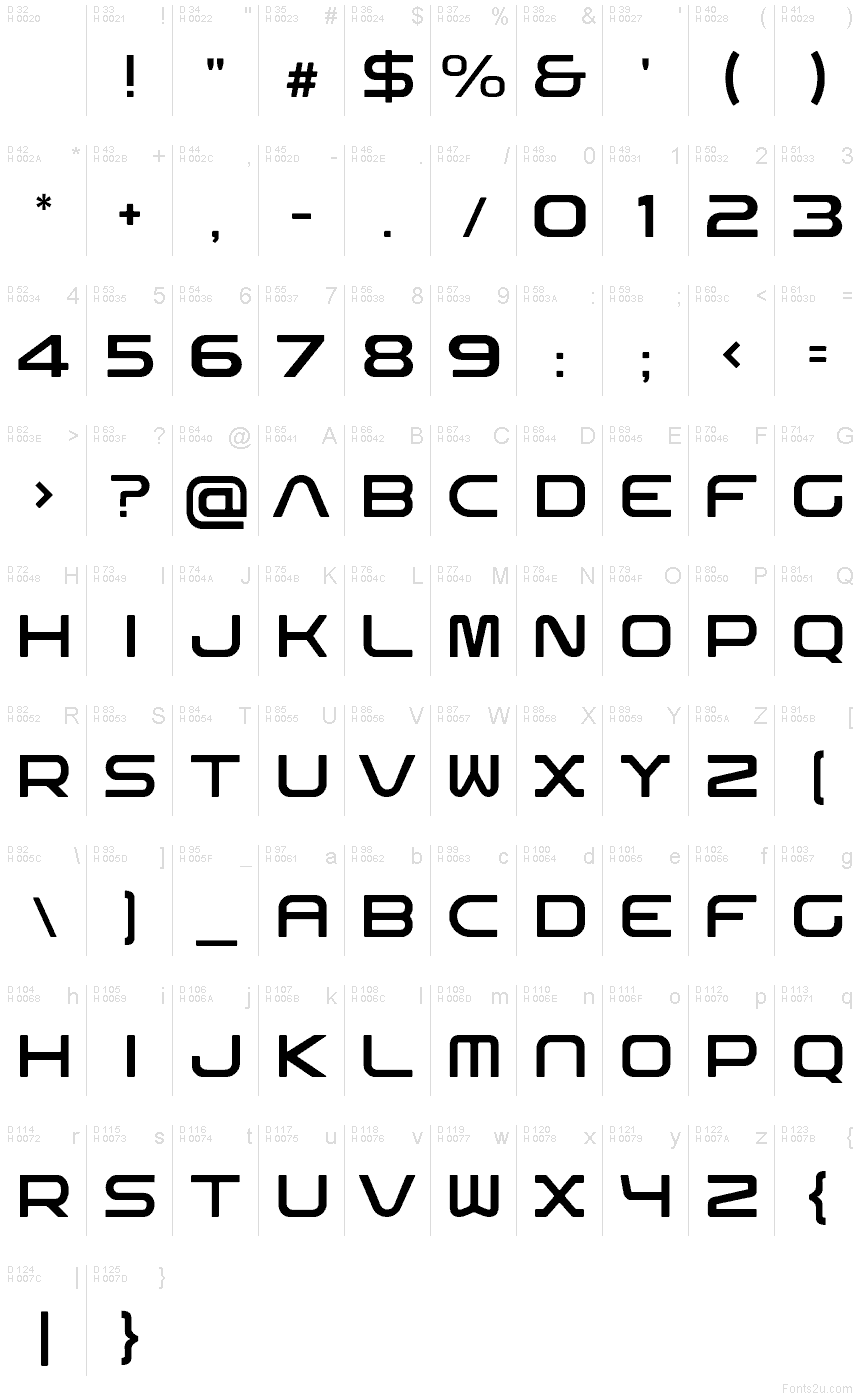
DARKLINOS
Darklinos font by UI Creative is a free futuristic display font. It stands out with sleek, tubular strokes that curve into rounded rectangles, then snap into sharp, sliced joints—like machined parts clicking into place. The rhythm is tight and aerodynamic, with generous counters that keep the forms breathing even at heavy weights, giving headlines a clean, high-tech glow without feeling sterile.
Using Darklinos, you’ll get instant sci‑fi presence for esports logos, tech event posters, app splash screens, streaming overlays, gadget packaging, and synthwave album art. This free font shines when tracked slightly and set large; pair it with a light, neutral geometric sans for body copy to let the glossy shapes lead while the text stays effortlessly readable.